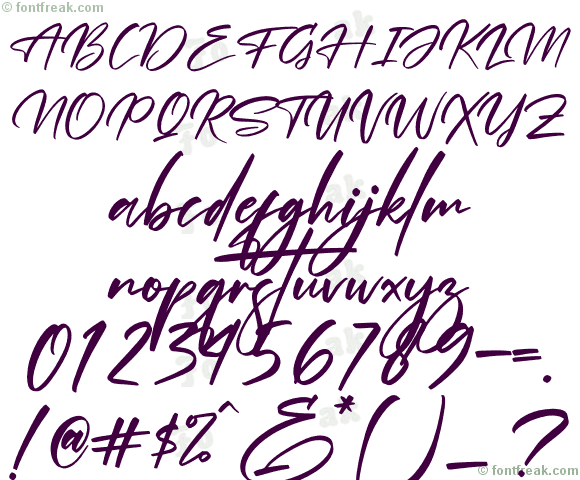
Andalusia Signature
About Andalusia Signature
Andalusia Signature is a captivating script font created by Perspectype Studio in 2021, designed to evoke a sense of elegance and sophistication. This handwritten-style font showcases a fluid and natural flow, characterized by its smooth curves and varying stroke weights that lend it a dynamic appearance. The contrasting thick and thin lines create a beautiful visual rhythm, while the generous spacing between letters enhances readability, making it a perfect choice for various applications.
This font is particularly well-suited for wedding invitations, where its romantic flair can beautifully complement the theme of love and celebration. It also shines in branding endeavors, such as restaurant menus or boutique logos, where a touch of personalization is crucial for standing out. Additionally, Andalusia Signature can elevate the aesthetic of social media graphics and beauty product packaging, providing a stylish and modern look. With its versatile design, it appeals to graphic designers, small business owners, and content creators looking to add a unique touch to their projects.
What sets the Andalusia Signature font apart is its effortless blend of sophistication and approachability. The delicately crafted letters resonate with the charm of traditional calligraphy while maintaining a contemporary feel, making it an ideal choice for anyone seeking to make a memorable impression. With the Andalusia Signature font free download option, it becomes accessible for various creative endeavors, allowing users to infuse their designs with a touch of artistry and elegance. Whether you're designing for a special occasion or a branding project, this font is sure to leave a lasting impact.